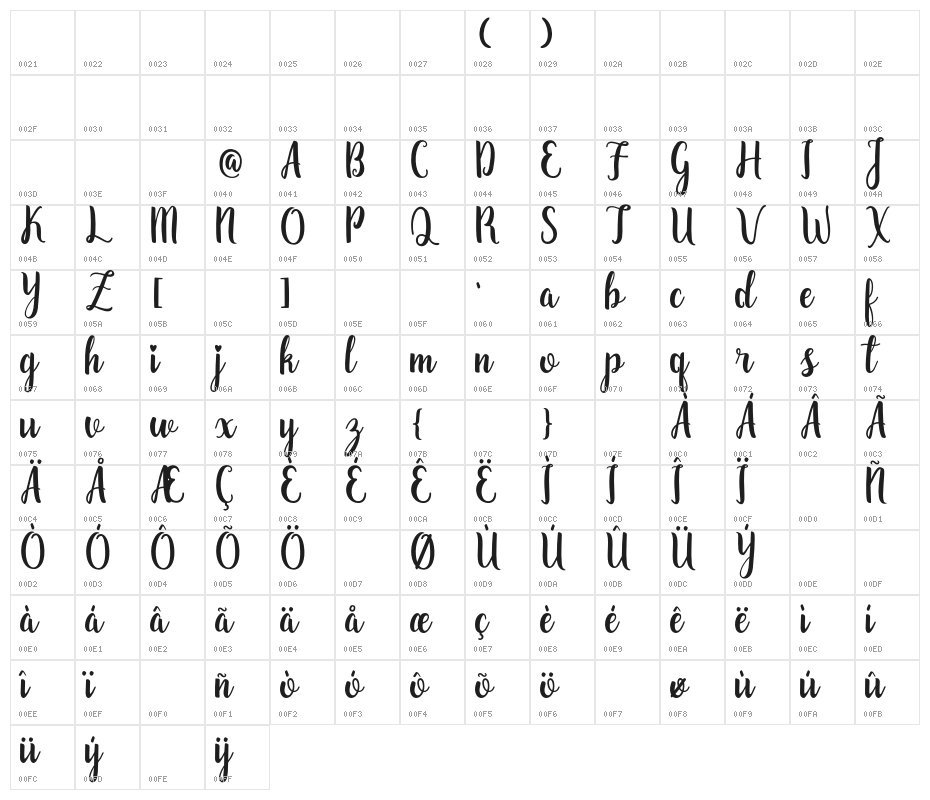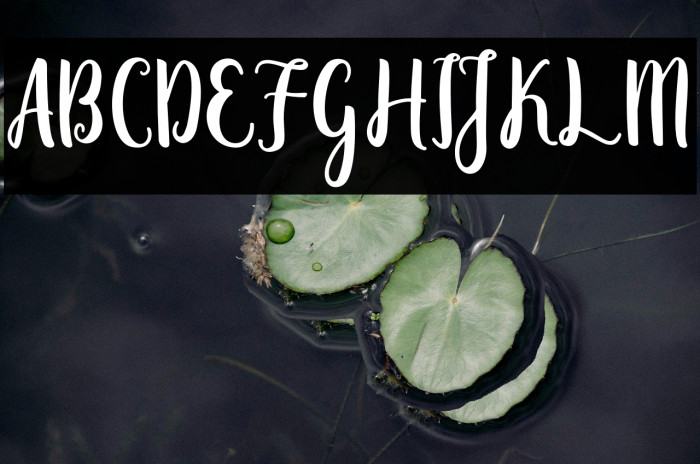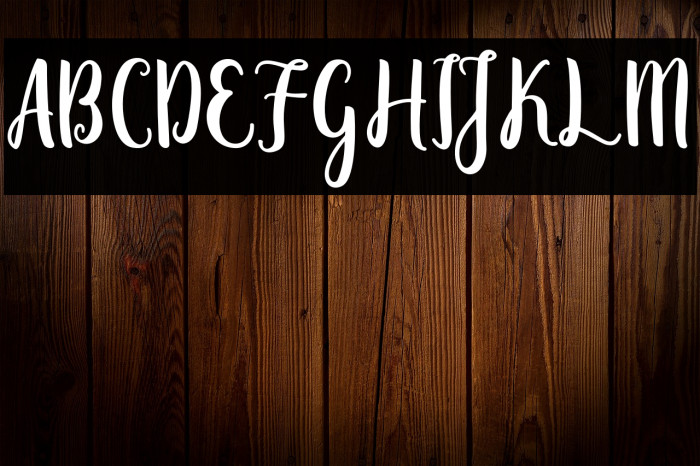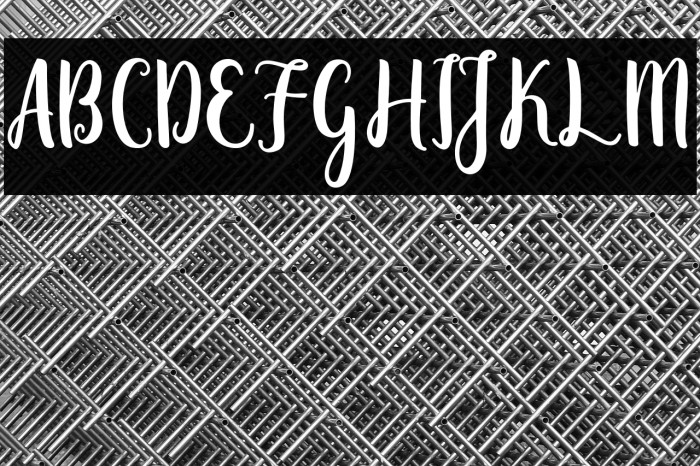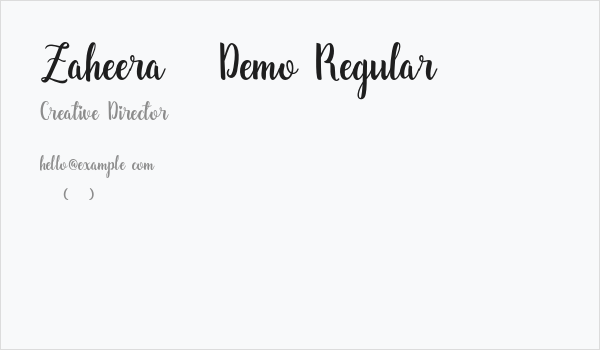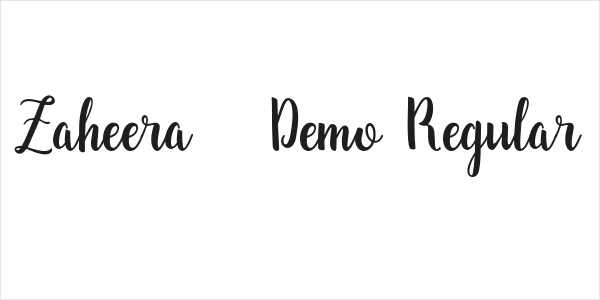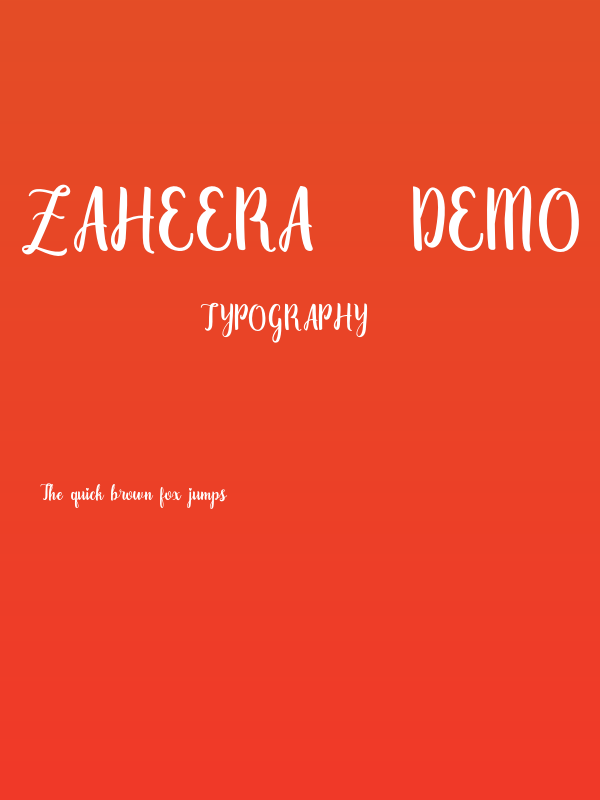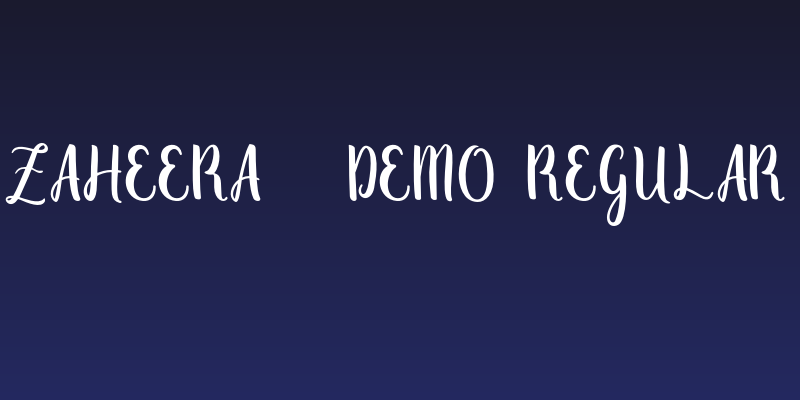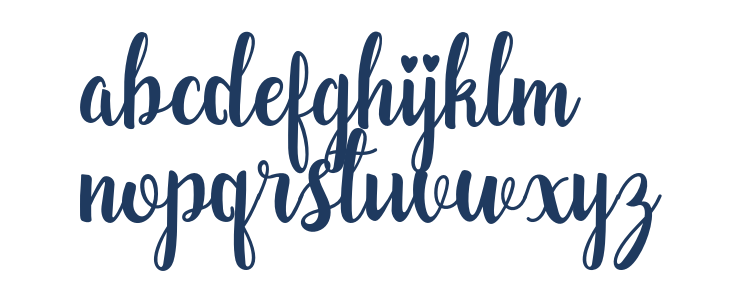
Zaheera - Demo Regular Font
Zaheera - Demo Regular Description
This font features a playful and elegant script style, characterized by its flowing, cursive letters that exude a sense of charm and sophistication. The uppercase letters are bold and slightly whimsical, with unique flourishes that add a touch of personality. The lowercase letters maintain a consistent style, with smooth curves and a balanced structure. The font's overall appearance is both modern and timeless, making it suitable for a variety of design projects. Its distinctive style is perfect for adding a personal touch to invitations, branding, and creative projects.